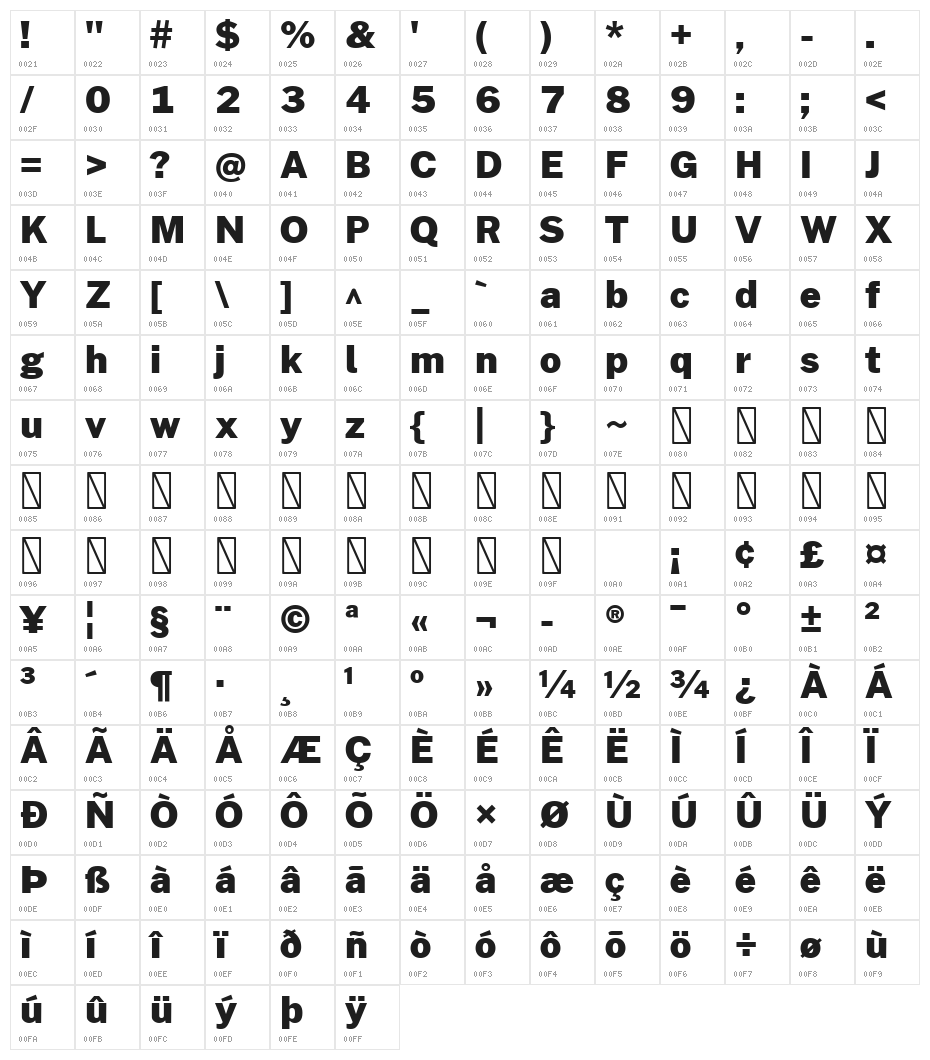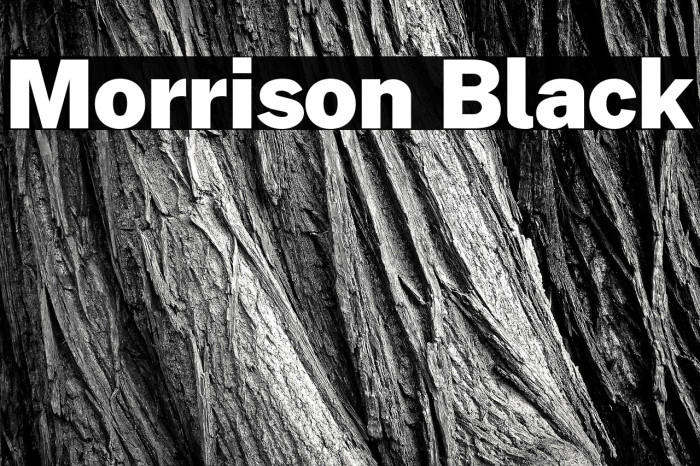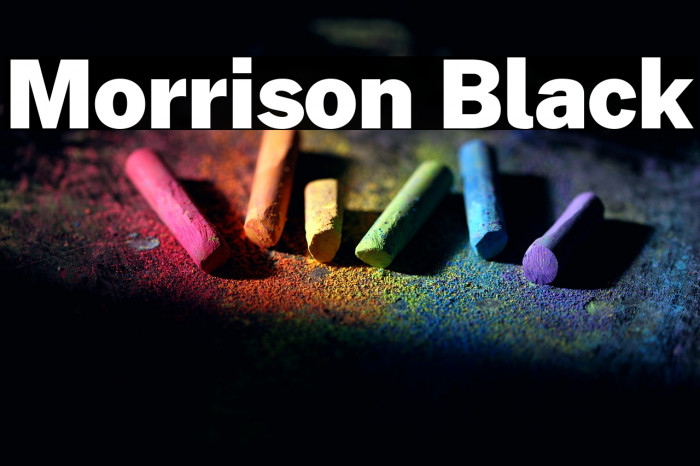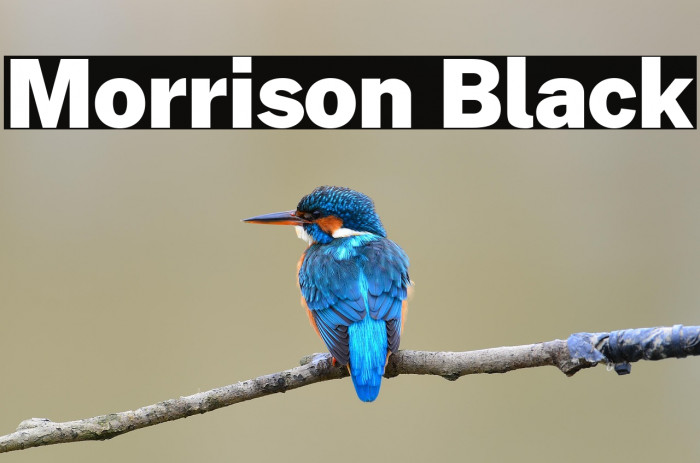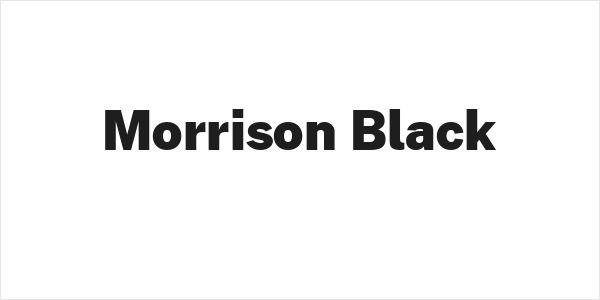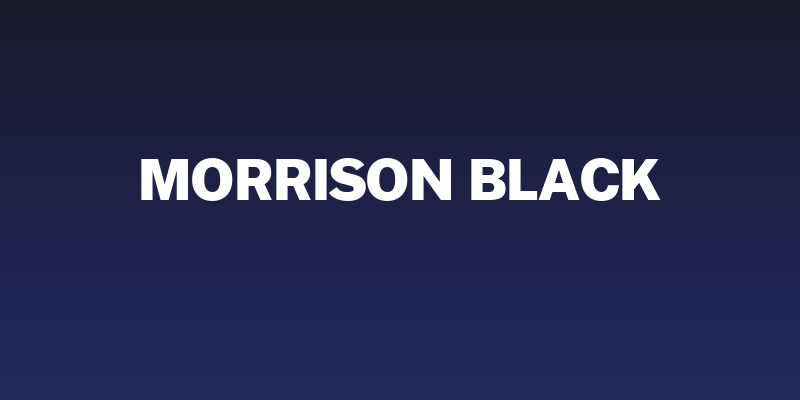
Morrison Black Font
| Caso d'uso | Headlines, Logos, Advertising |
| Progetti proposti | Ideal for branding, advertising, headlines, and signage where a strong, clear message is needed. |